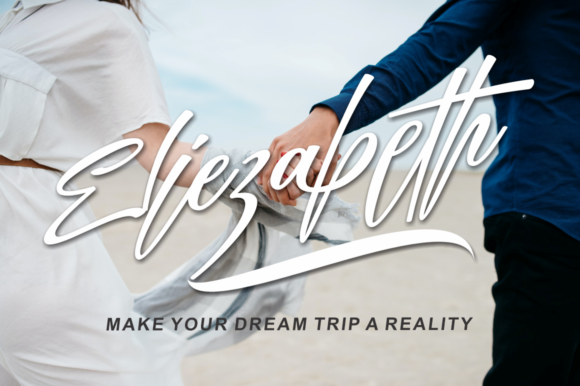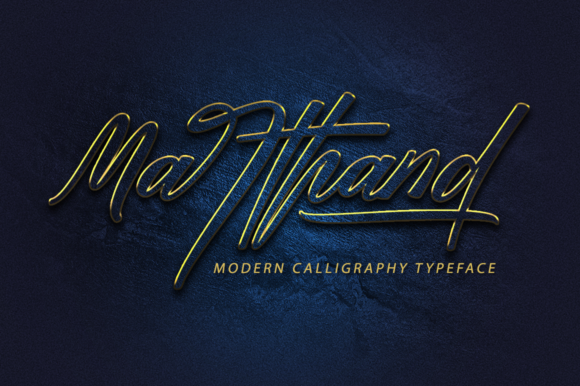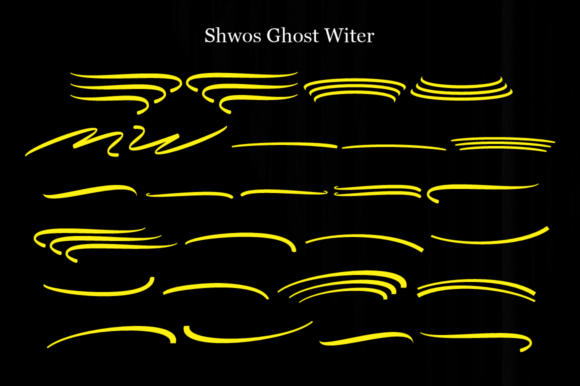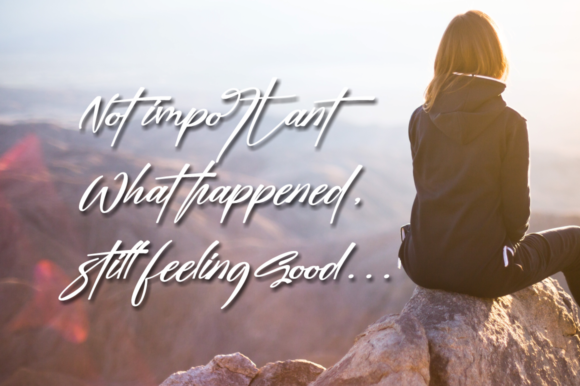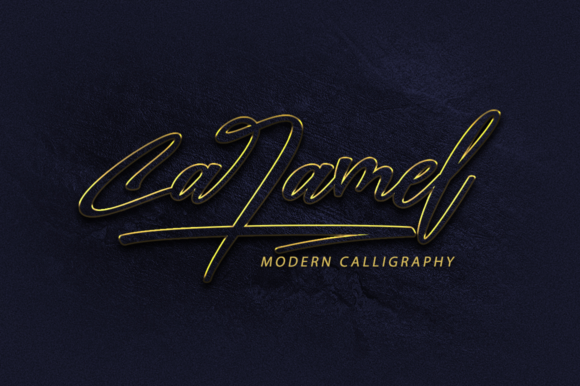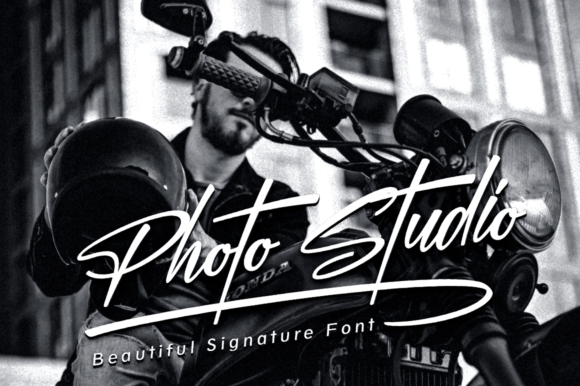
Unleash Your Creativity with Ghost Writer Font: A Signature Handcrafted Typeface
Are you a designer, craftsperson, or DIY enthusiast looking for a unique and dynamic font to elevate your creative projects? Look no further than the Ghost Writer Font, a signature handcrafted typeface that’s perfect for branding, logos, logotypes, clothing, posters, magazines, and more. In this article, we’ll dive into the features and benefits of this amazing font, and explore how it can help you take your designs to the next level.
What is Ghost Writer Font?
Ghost Writer Font is a carefully crafted, one-of-a-kind typeface that’s designed to add a touch of personality and style to your designs. With its dynamic and signature look, this font is ideal for creative professionals and DIY enthusiasts who want to make a statement. Whether you’re working on a branding project, creating a logo, or designing a poster, Ghost Writer Font is the perfect choice.
Key Features of Ghost Writer Font
So, what makes Ghost Writer Font so special? Here are some of its key features:
- Handcrafted with love: Each letter and glyph has been carefully crafted to ensure a unique and authentic look.
- PUA encoded: This font is PUA (Private Use Area) encoded, which means you can access all of the glyphs and swashes with ease.
- Dynamic and signature look: Ghost Writer Font has a distinctive, hand-drawn feel that’s perfect for creating eye-catching designs.
- Multipurpose: Use this font for a wide range of projects, from branding and logos to clothing and posters.
Benefits of Using Ghost Writer Font
So, why should you choose Ghost Writer Font for your next project? Here are just a few benefits:
- Add a personal touch: With its unique, handcrafted look, Ghost Writer Font is the perfect way to add a personal touch to your designs.
- Stand out from the crowd: This font’s dynamic and signature look will help your designs stand out in a crowded marketplace.
- Easy to use: Thanks to its PUA encoding, you can access all of the glyphs and swashes with ease, making it simple to incorporate into your designs.
- Versatile: Ghost Writer Font is suitable for a wide range of projects, from digital designs to print materials.
Who Can Benefit from Ghost Writer Font?
Ghost Writer Font is perfect for:
- Graphic designers: Add a touch of personality to your branding, logo, and poster designs.
- Crafters and DIY enthusiasts: Use this font to create unique and eye-catching designs for your handmade products.
- Marketing and advertising professionals: Create attention-grabbing ads and promotional materials with Ghost Writer Font.
- Small business owners: Establish your brand identity with a custom font that’s both dynamic and memorable.
Tips for Using Ghost Writer Font
Here are some tips for getting the most out of Ghost Writer Font:
- Experiment with different sizes and colors: Play around with different sizes and colors to find the perfect combination for your design.
- Pair it with other fonts: Combine Ghost Writer Font with other fonts to create a unique and eye-catching look.
- Use it consistently: Use Ghost Writer Font consistently across all of your designs to establish a strong brand identity.